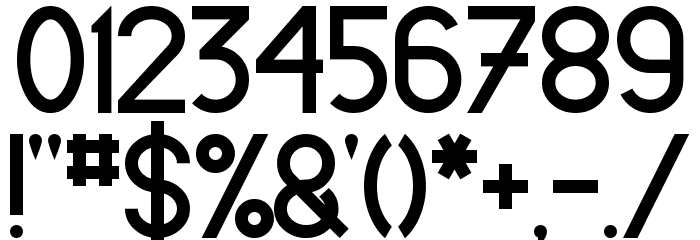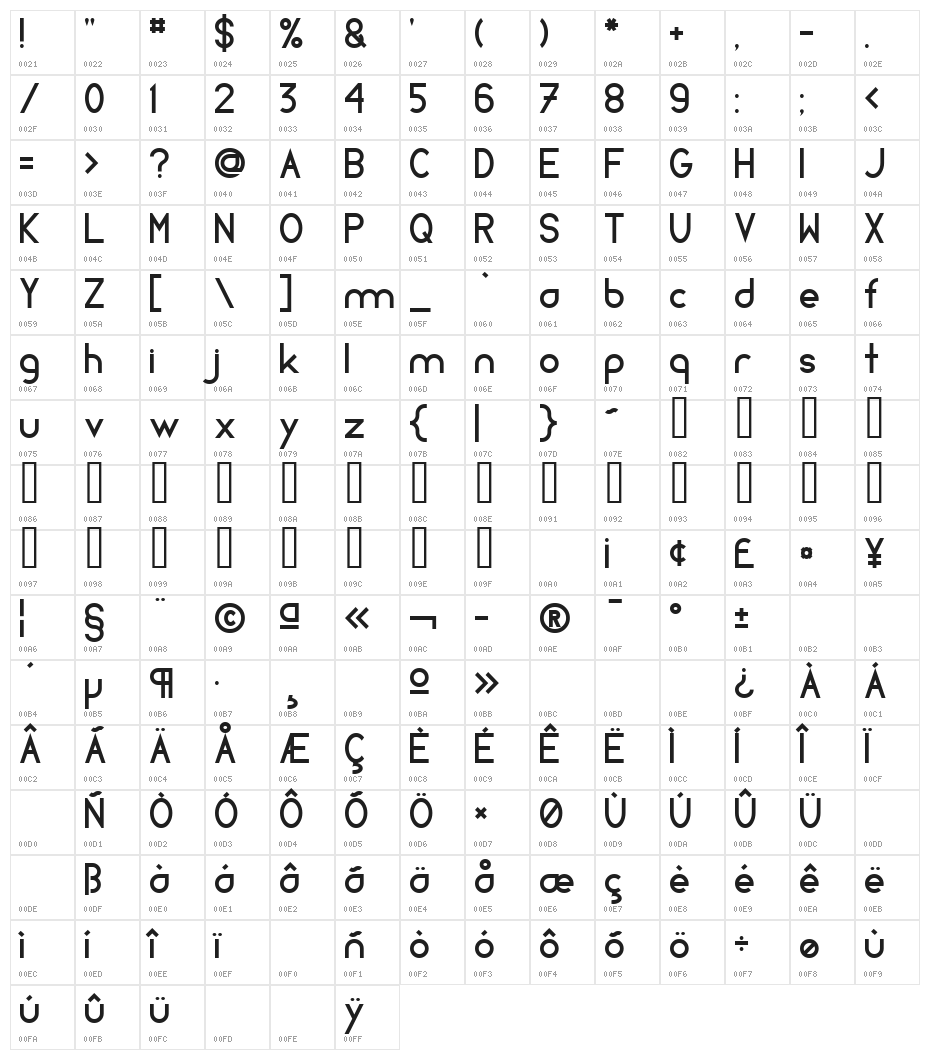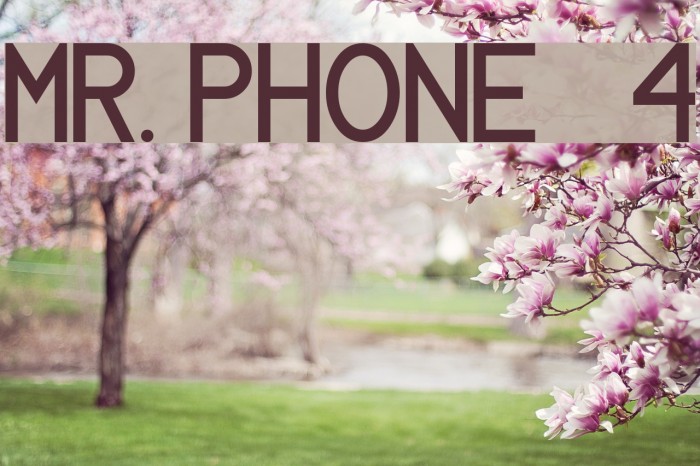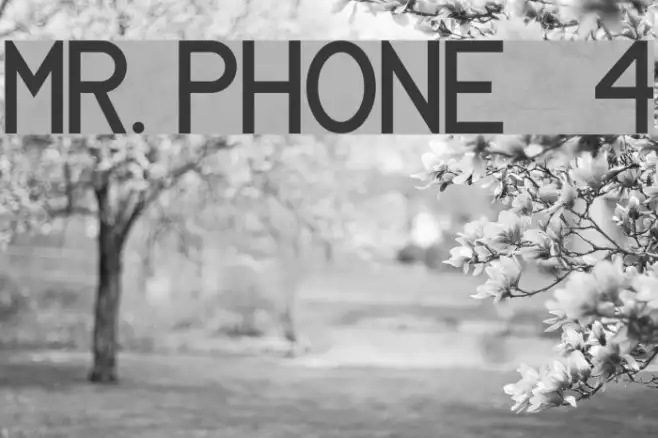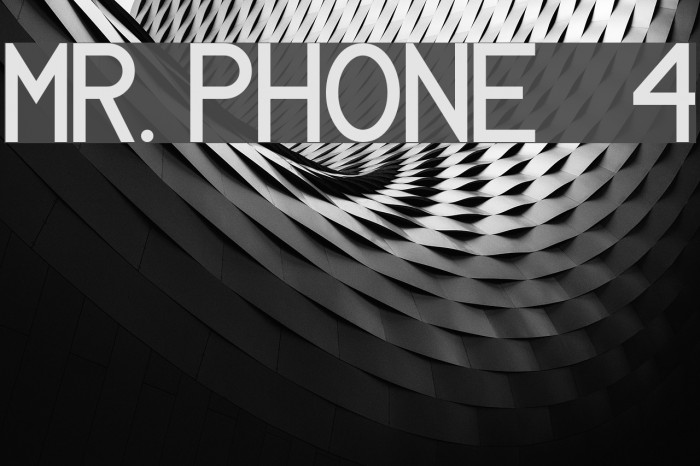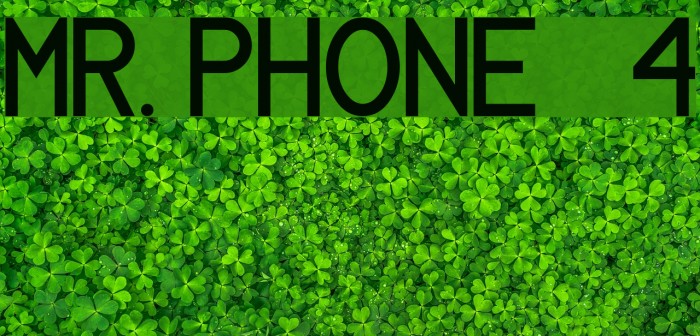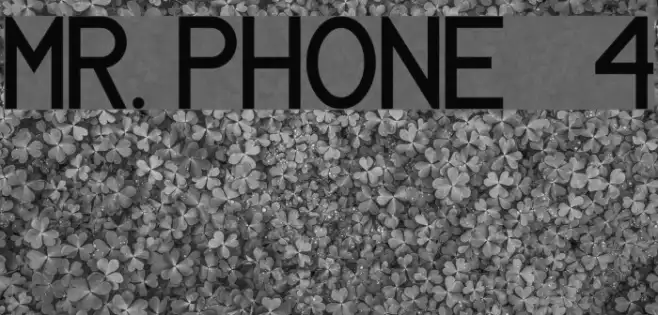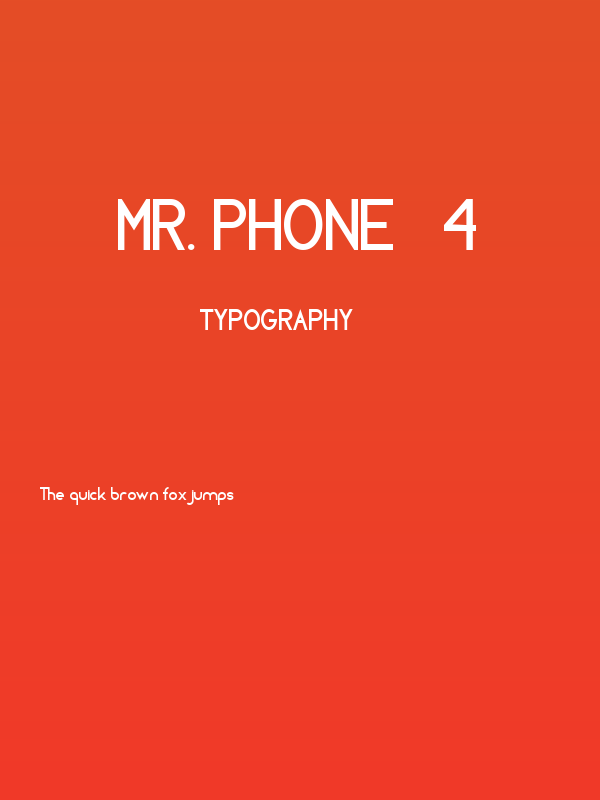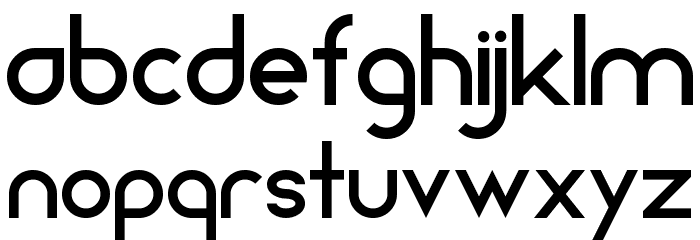
MR. PHONE 4 Font
MR. PHONE 4 Description
This font features a clean, geometric sans-serif style with uniform stroke widths, giving it a modern and minimalistic appearance. The characters are well-proportioned, with a consistent height and width that contribute to its readability. The uppercase letters are bold and assertive, while the lowercase letters maintain a smooth and rounded form, adding a touch of softness to the overall design. The numerals are clear and distinct, making them suitable for various applications. Special characters are included, maintaining the same geometric style, ensuring versatility in usage.